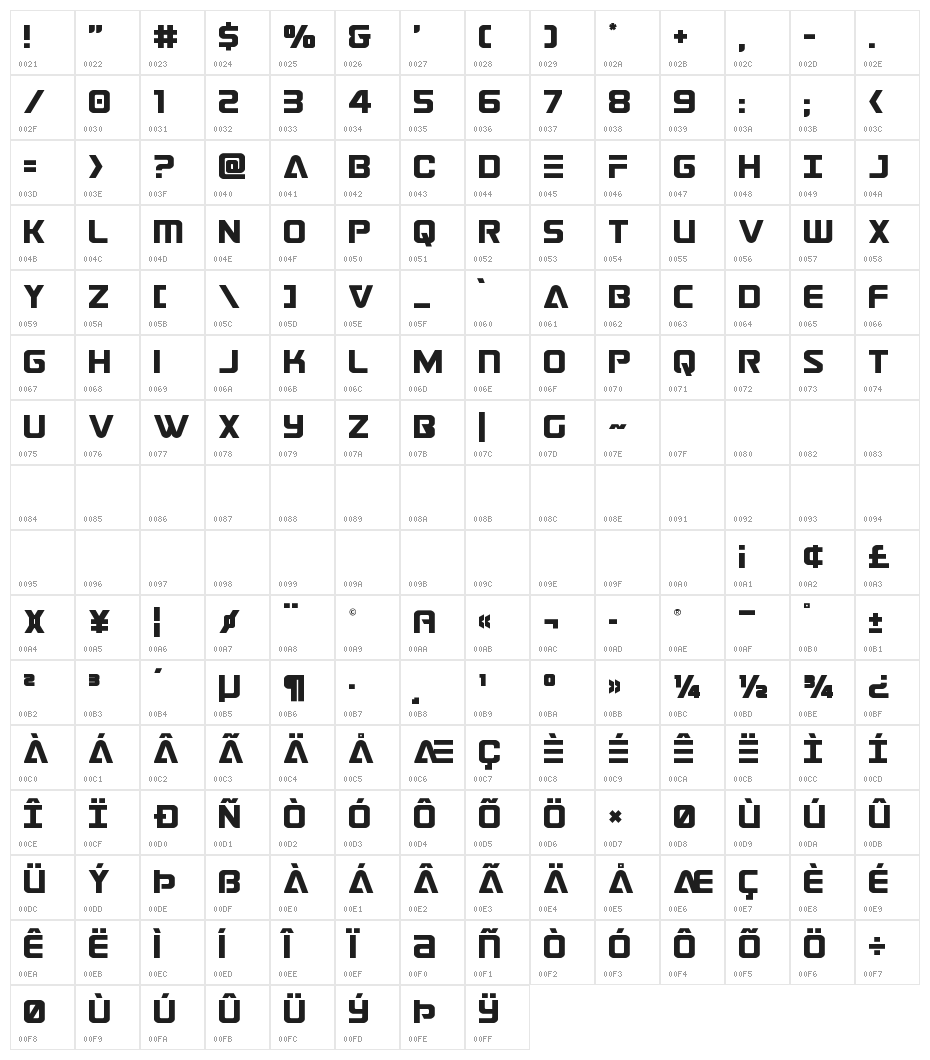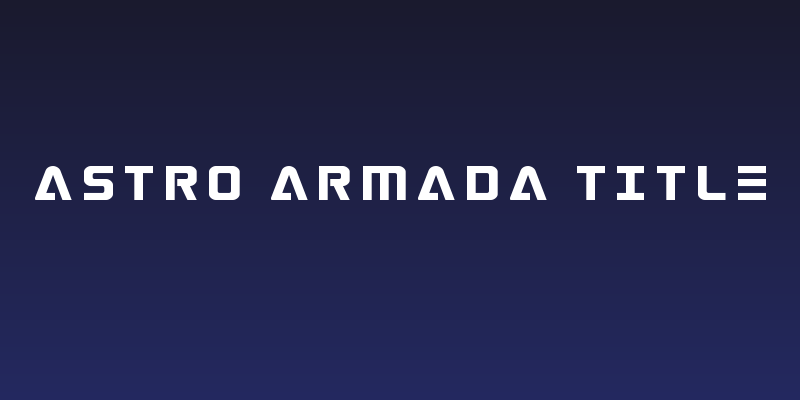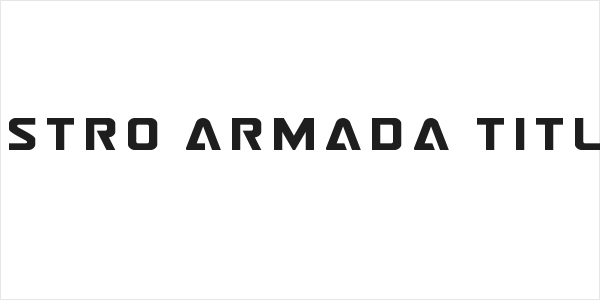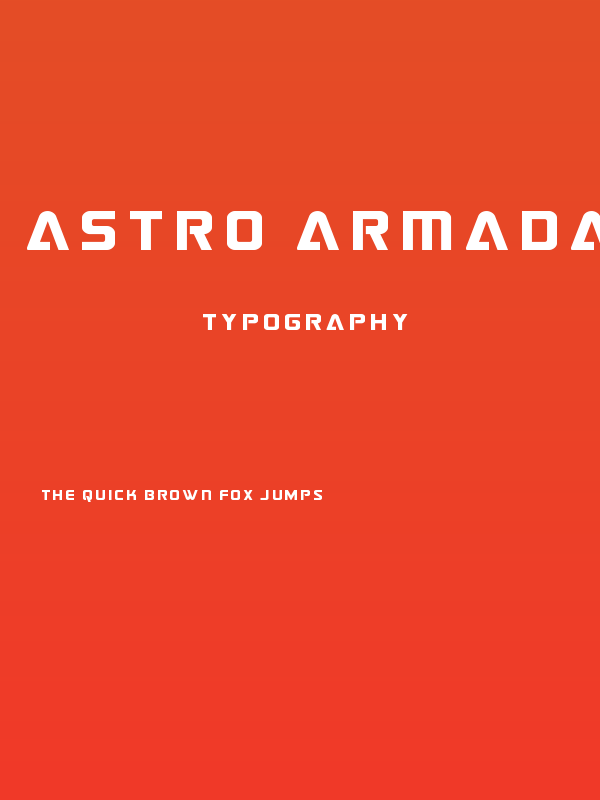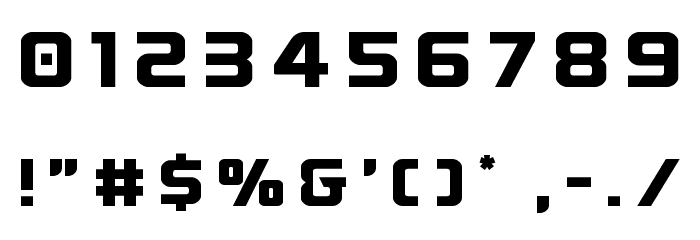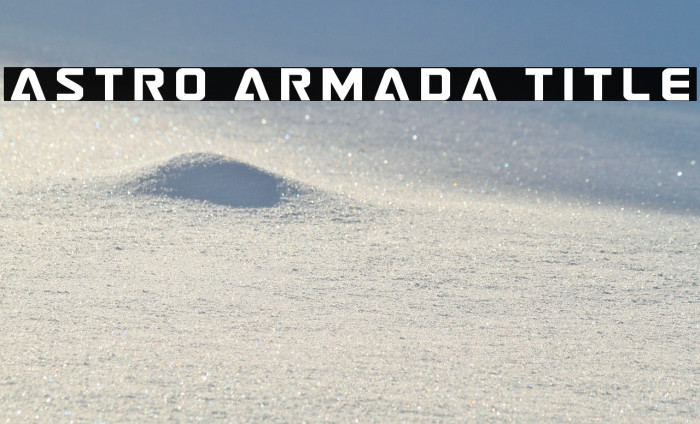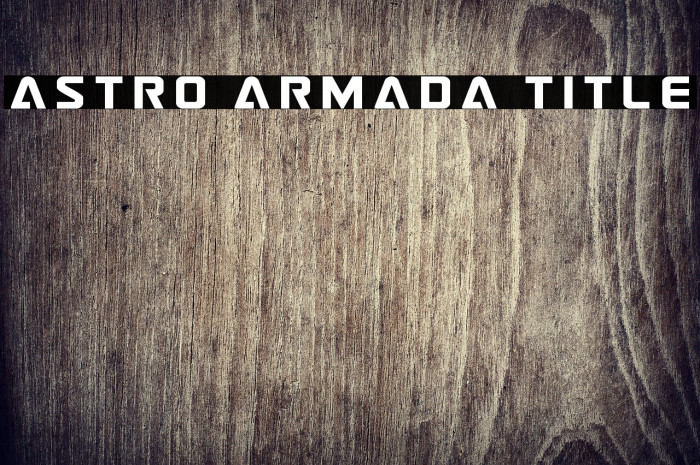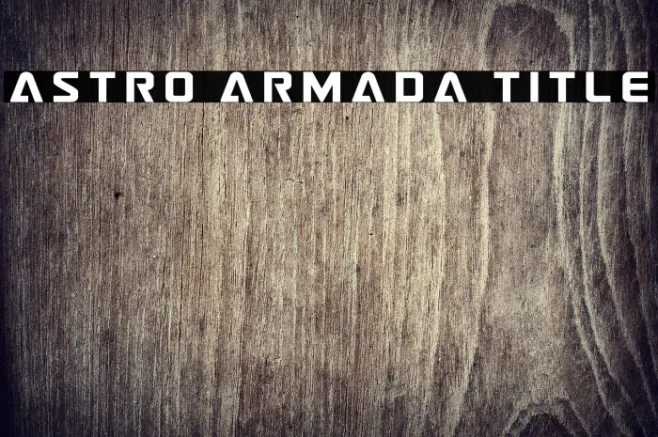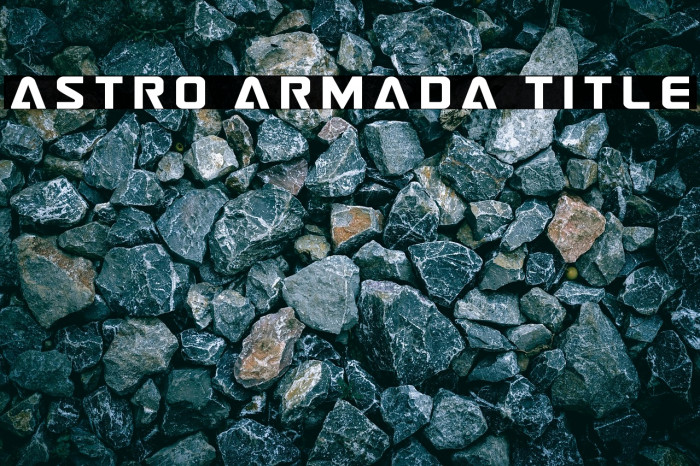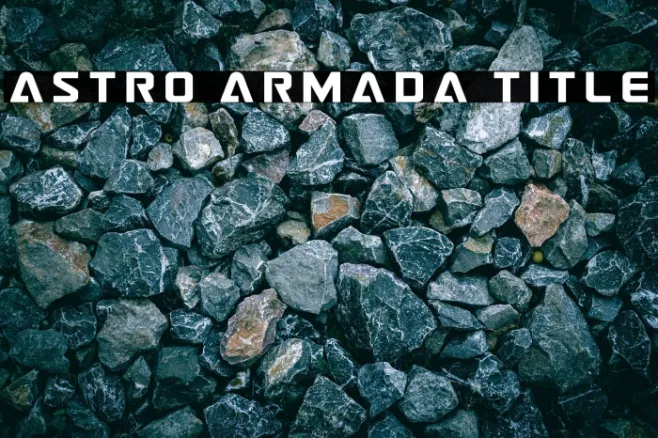
Astro Armada Title Font
Astro Armada Title Description
This font features a bold, futuristic design with geometric shapes and sharp angles, giving it a modern and technological appearance. The uppercase letters are uniform in height, with consistent stroke widths that create a strong and impactful visual presence. The lowercase letters maintain the same geometric style, ensuring readability while adding a unique flair. The numerals are distinct and align well with the overall design, making them suitable for digital displays. Special characters are crafted with the same attention to detail, ensuring they complement the alphabetic characters seamlessly. This font is ideal for projects that require a modern, tech-inspired aesthetic.
| Proposed Projects | Ideal for technology branding, video game titles, sci-fi movie posters, and digital interfaces. |